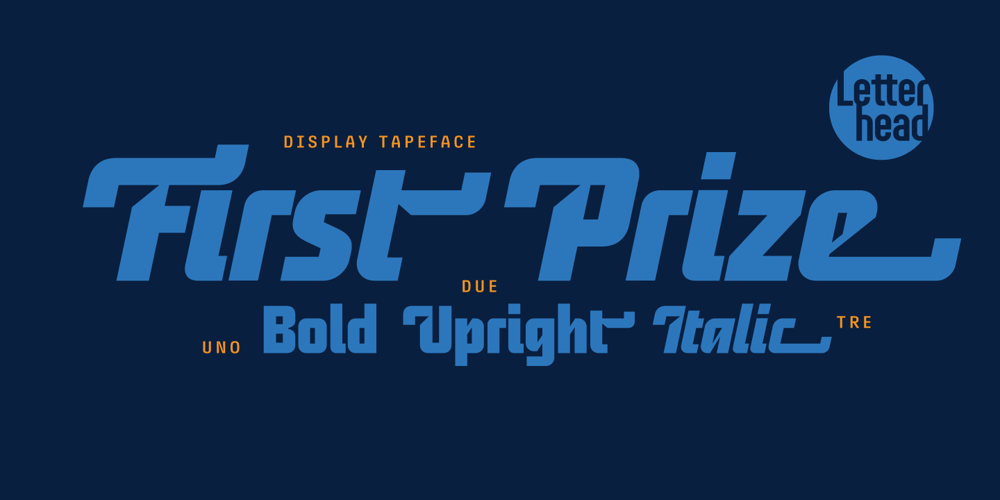
First Prize Font Family was designed by Valery Golyzhenkov and published by Letterhead Studio-VG. First Prize contains 15 styles and family package options. First Prize typeface has simple shapes. It is a narrow, heavy sans serif typeface with geometrical logic and quite predictable constructions of characters. The idea behind it was to combine constructed structure of the skeleton and some calligraphic ideas, swashes and cursiveness. At the moment First Prize typeface consists of three narrow styles: bold, upright italic and italic. Cursive weights have beautiful ending swashes and initials. There are few alternative shapes for A&N. As a Display typeface First Prize will work very well with any other typefaces for the good of any project in print or online.